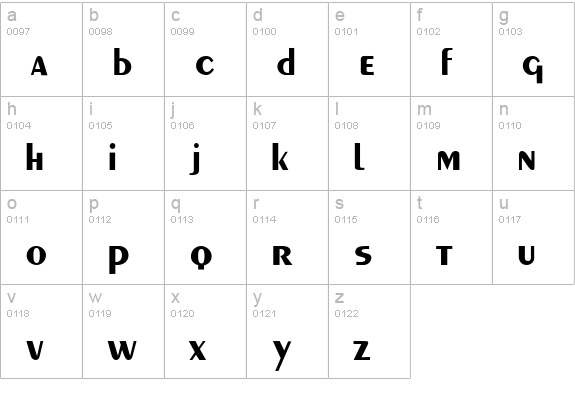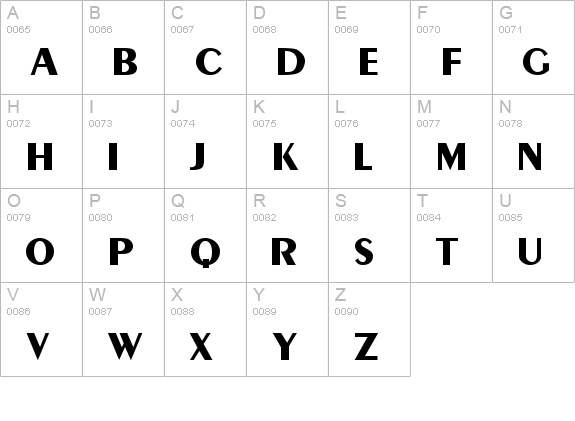
Jabot Display SSi Font Details
Jabot Display SSi is a stunning and versatile font that exudes elegance and sophistication. With its sleek and modern design, this typeface is perfect for adding a touch of class to any project. Featuring clean lines and sharp edges, Jabot Display SSi commands attention and catches the eye. Its carefully crafted letterforms create a sense of balance and harmony, making it suitable for a wide range of applications. What sets Jabot Display SSi apart is its unique combination of grace and strength. The font effortlessly combines delicate curves with bold strokes, resulting in a visually striking and impactful look. Whether you're creating a logo, designing a website, or crafting a brochure, Jabot Display SSi is sure to make a lasting impression. Its versatility allows it to seamlessly adapt to various design styles and contexts, making it a valuable asset for any designer. The best part is, Jabot Display SSi is available for free download at FontsMarket.com. This means that you can easily access and use this exceptional font without any cost or hassle. Simply visit FontsMarket.com, locate the Jabot Display SSi font, and start incorporating its timeless beauty into your projects. Don't miss out on the opportunity to enhance your designs with this extraordinary font. Download Jabot Display SSi today and experience the freedom and creativity it brings to your typography.